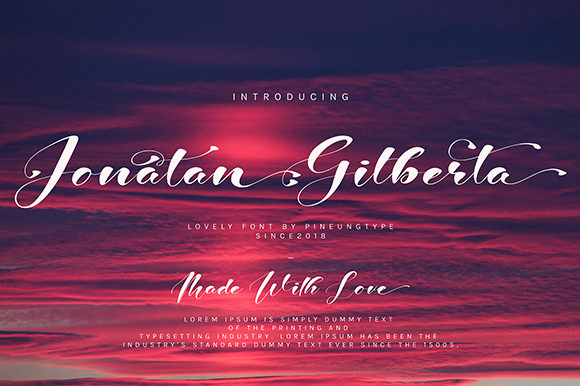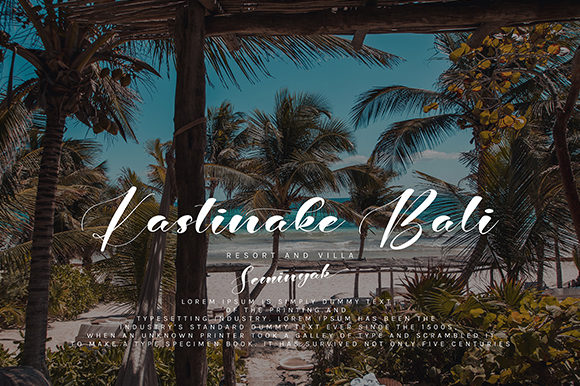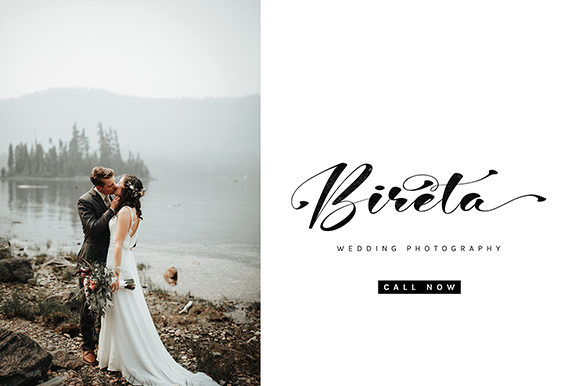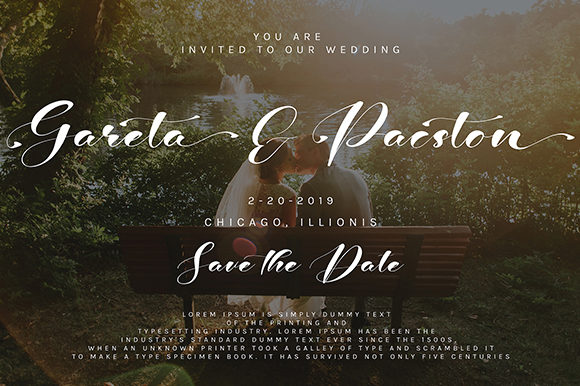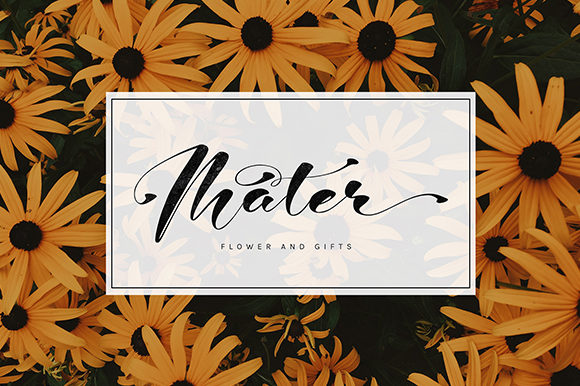
Jonatan Gilberta Font
About Jonatan Gilberta Font
Jonatan Gilberta is a stunning handwritten font with a sophisticated feel. It will add an elegant spark to any design idea!